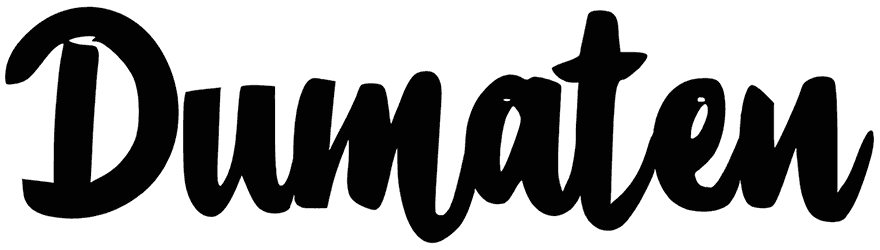
d Dumaten Font
If finding a suitable script font takes you lots of time and energy, then you should take advantage of a marvelous script font similar to the d Dumaten that comes with rounded edges and looks insanely perfect for a wide range of projects.
Since this font carries a feeling of dynamism, vivacity, tenderness, or whimsy, it can be insanely matched with any kind of content, like animation posters, stickers, product packaging, gift cards, or applications.